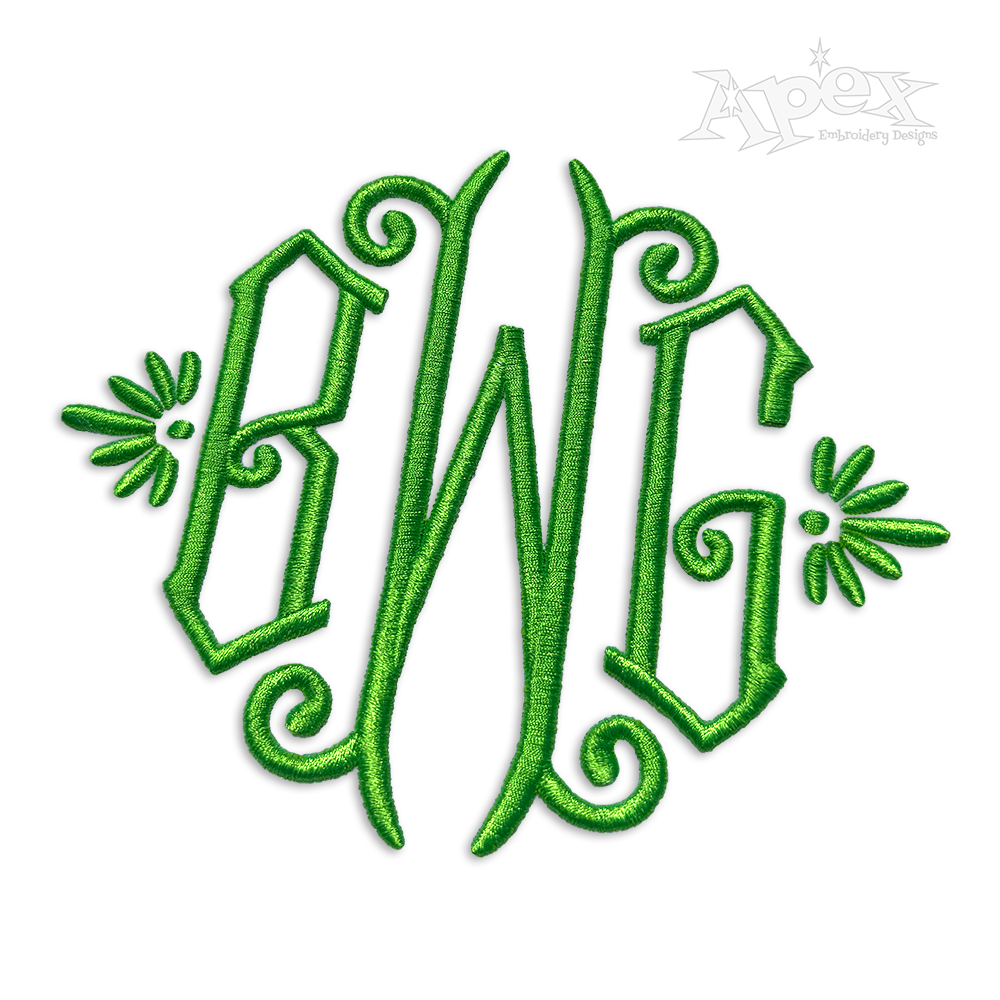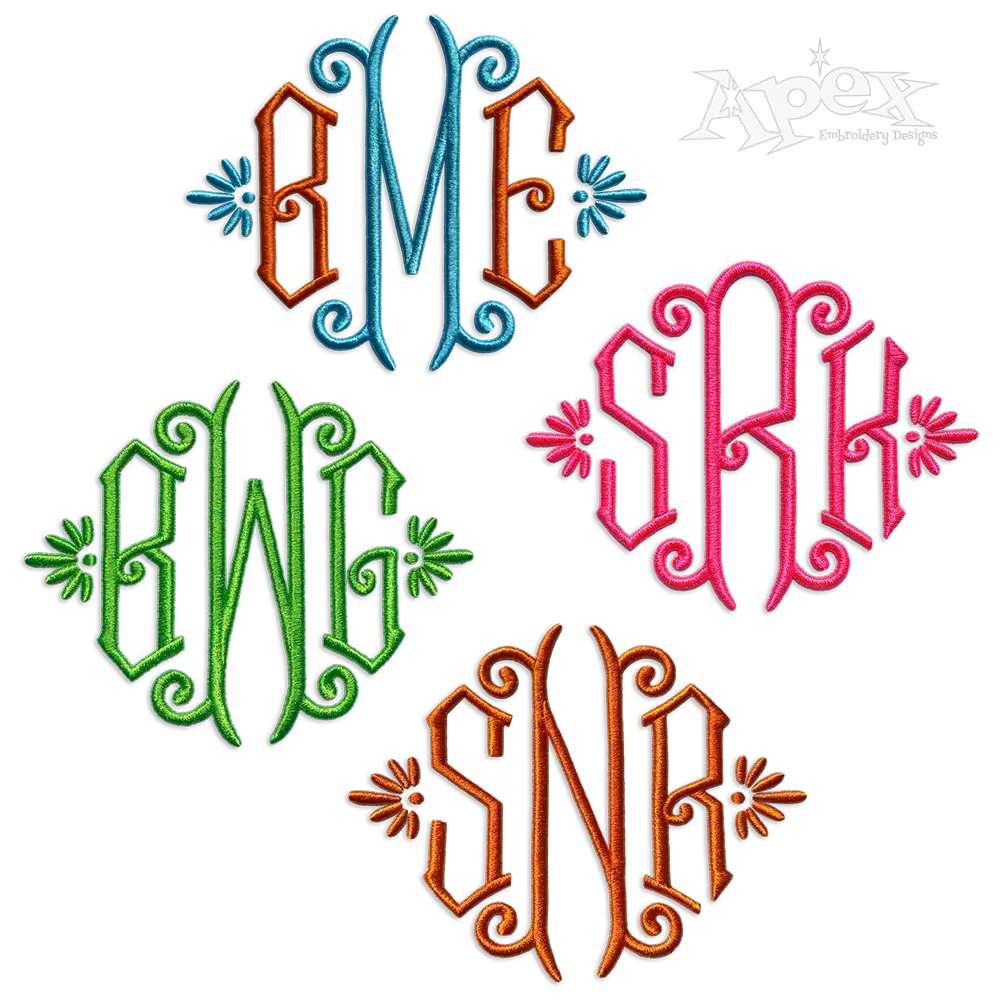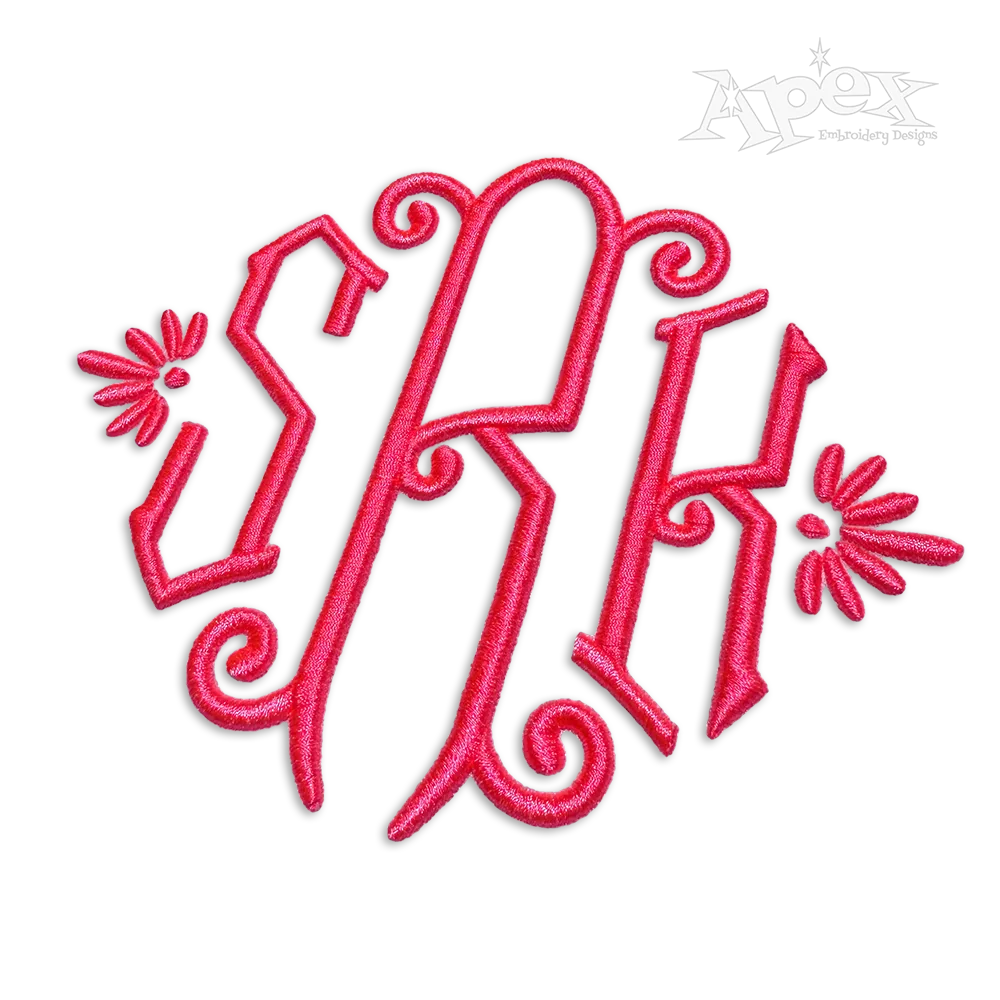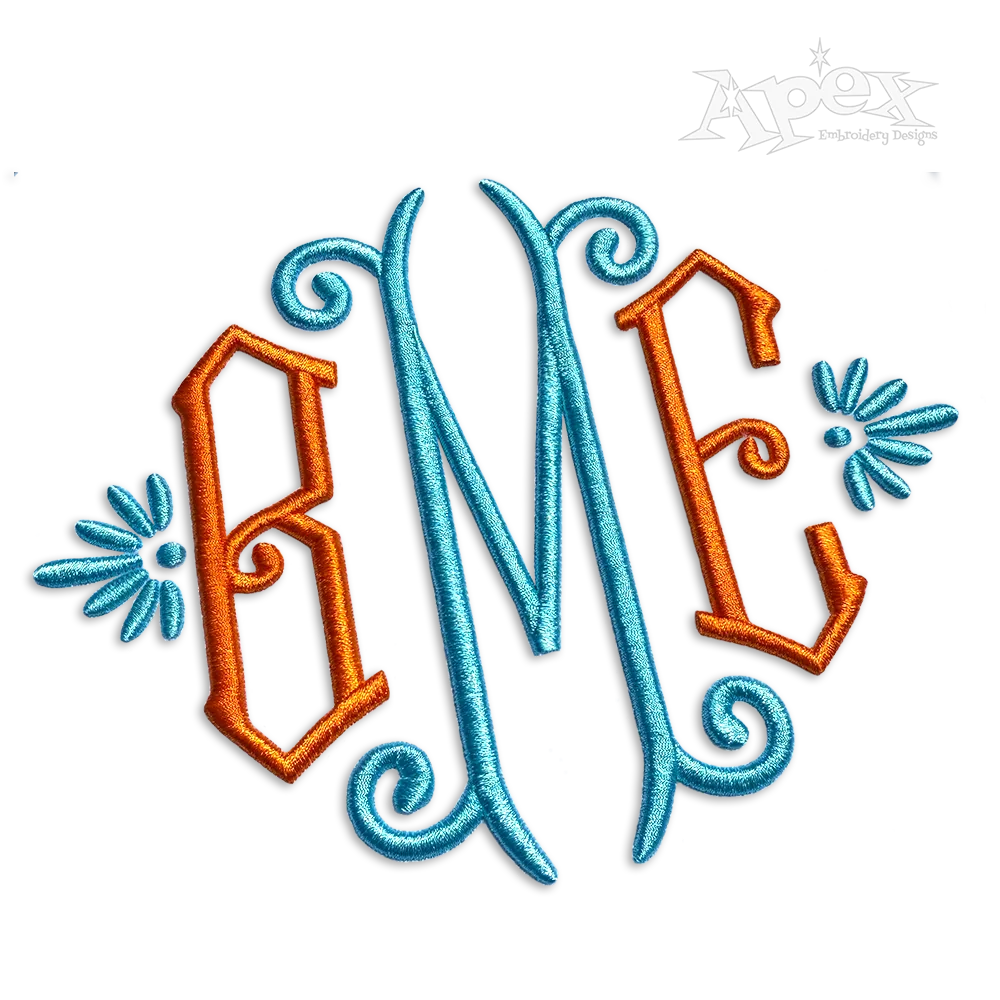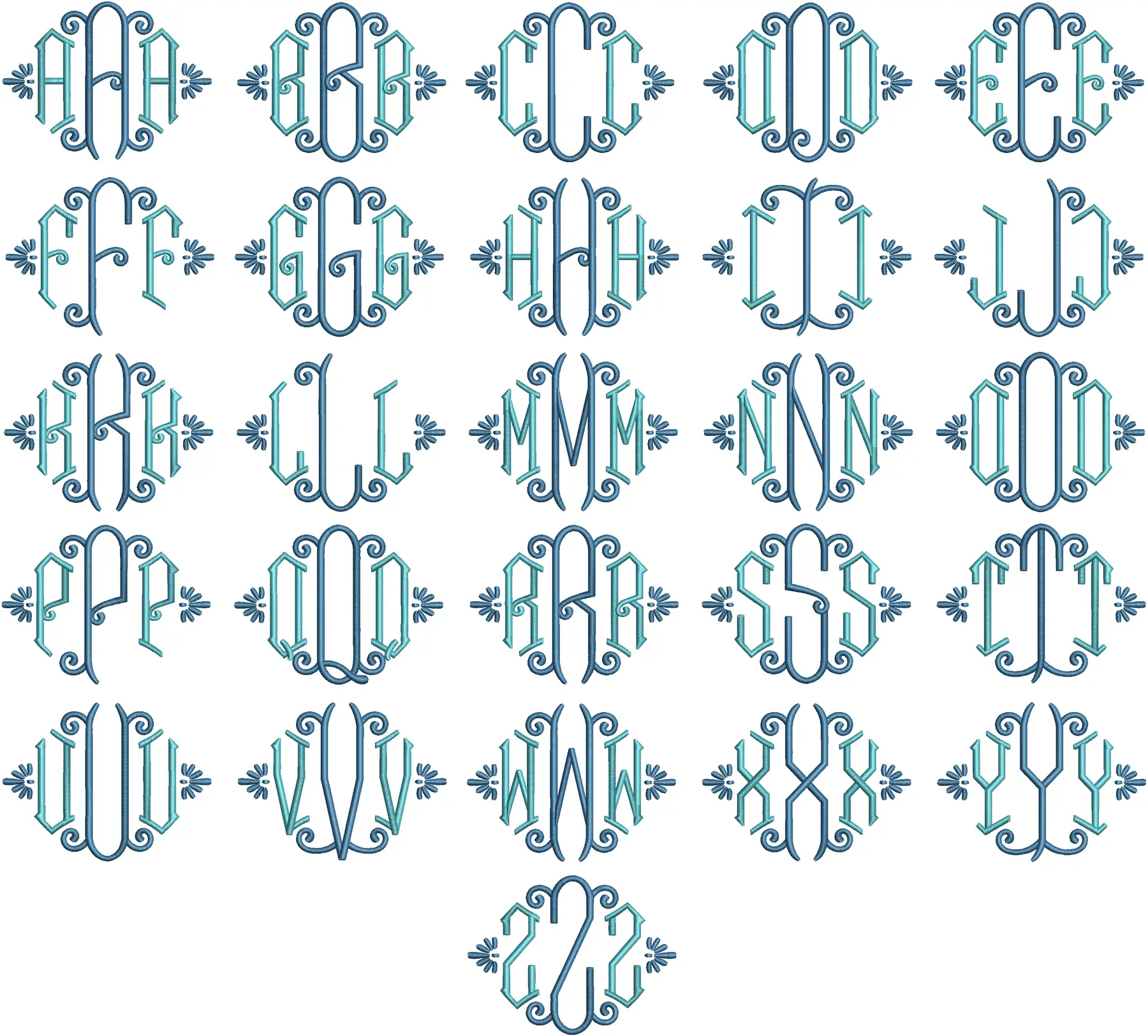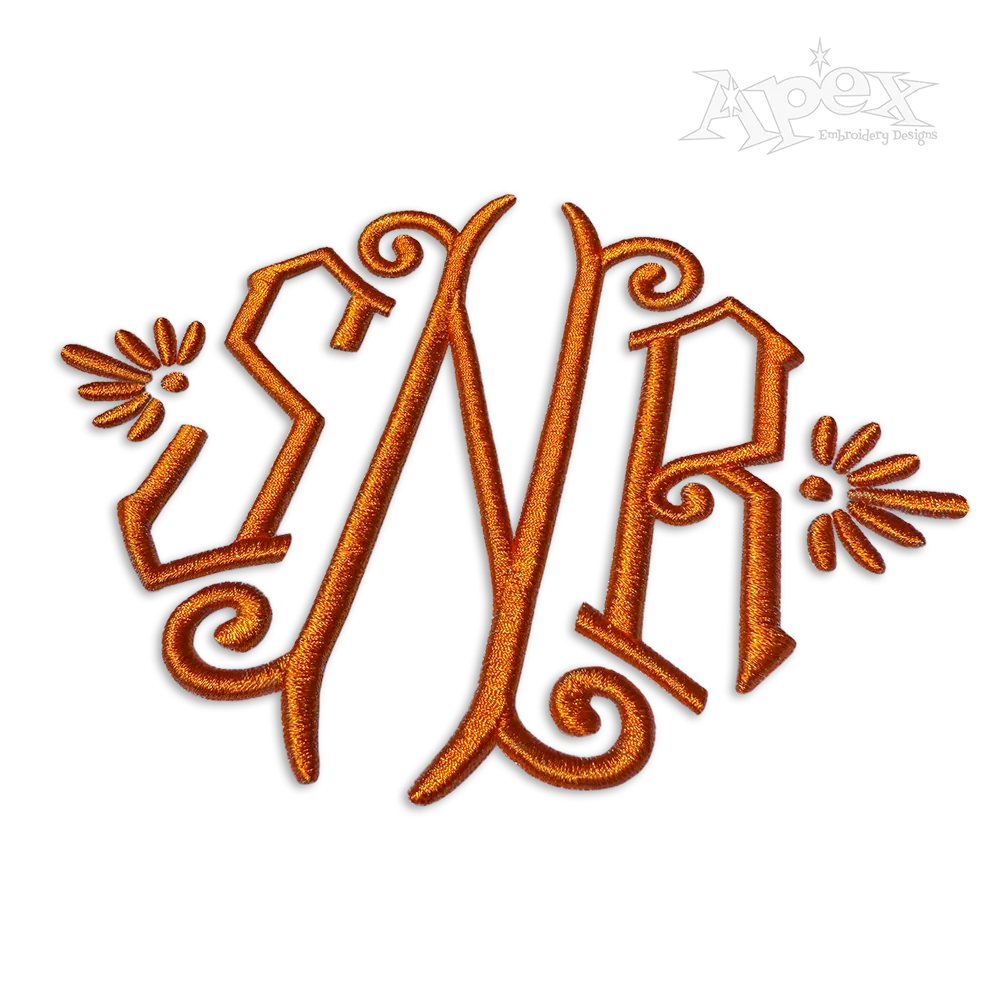
Brigitte Monogram 3D Puff Embroidery Font
Create 3D Puff personalized gifts and home décor with Brigitte Monogram. European old world Chic Monogram Embroidery Brigitte Font Bundle. Featuring a classic with Europe Regal embroidery monogram set is perfect for customizing hats, linens, towels, baby gifts, tote bags, and more.